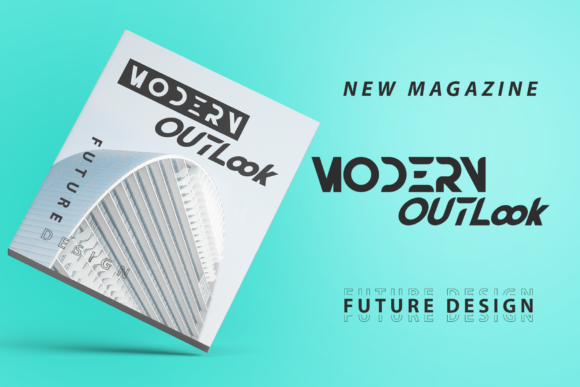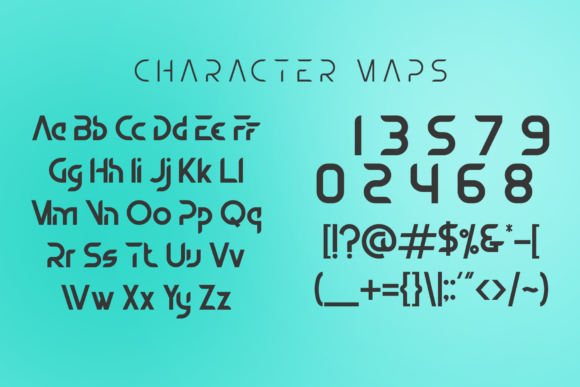
Unleashing Your Creativity with Chambers Font
Have you ever been working on a design project and stumbled upon that one font that sparks an idea and sets your creative juices flowing? For many designers, it’s a moment that can make all the difference between a good design and a great one. For me, it was discovering the futuristic and edgy Chambers Font, a display font that has become a staple in my design arsenal.
Designed by the talented team at Kong Font Studio, Chambers Font is a versatile and modern font that’s perfect for crafting unique and eye-catching designs. Whether you’re working on product packaging, branding projects, or magazine covers, this font is sure to add a touch of sophistication and style to your work. Its value lies in its ability to elevate your designs and make them stand out in a crowded market.
Chambers Font Key Features
• Font Family: Chambers Font is a sans-serif font family designed by Dalton Maag, with 12 weights and italics available.
• Character Set: The font family supports a wide range of languages, including Latin, Cyrillic, Greek, and many others.
• Unique Characteristics: The font features a clean, modern design with a distinctive geometric feel, making it ideal for digital and print applications.
Chambers Font Review
As a designer, I’ve had the chance to work with a variety of fonts, and I must say that Chambers Font has some great qualities that make it stand out. ✨
• Unique Character**: Chambers Font has a distinct, elegant feel that sets it apart from more common fonts. Its subtle flair and curves make it perfect for titles and headings.
• Legibility**: The font is highly legible, even at smaller sizes, making it great for body text and other applications where readability is crucial.
• Customizability**: Chambers Font offers a range of weights and styles, allowing designers to tailor the font to their specific needs.
Of course, no font is perfect, and Chambers Font has a few limitations that designers should be aware of: ⚠️
• Limited Contextual Support**: Chambers Font may not perform as well in certain contexts, such as in very small sizes or when used with specific text formatting.
• Narrow Character Set**: The font’s character set is not as comprehensive as some other fonts, which may limit its use in certain applications.
Overall, I’d say that Chambers Font is a solid choice for designers looking for a unique, elegant font. While it may have some limitations, its strengths make it a great addition to any design project.
Tips for Getting the Most Out of the Chambers Font
Use the Chambers Font to add a touch of elegance and sophistication to your designs.
Pair the font with a neutral background to let the text take center stage.
Use the Chambers Font for:
Business cards and letterhead
Editorial and literary publications
Alternatives to Chambers Font
Playfair Display is an elegant, high-end serif font ideal for luxury brands and high-end publications. It’s perfect for use in titles, headings, and special occasions where a touch of sophistication is needed. Compared to Chambers Font, Playfair Display has a more dramatic flair and a stronger emphasis on aesthetics, making it a great choice for designers who want to create a sense of grandeur.
Bodoni is a classic, elegant serif font that’s perfect for use in high-end publications, luxury brands, and special occasions. It’s a great choice for designers who want to create a sense of sophistication and elegance without being too over-the-top. Compared to Chambers Font, Bodoni has a more refined and classic look, making it a great alternative for designers who want to maintain a sense of timelessness.